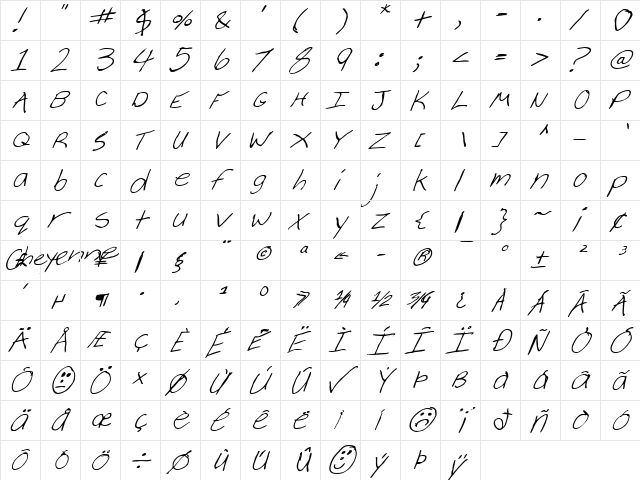
Cheyenne Hand Italic Italic
Design Context for Cheyenne Hand Italic Typeface
Cheyenne Hand Italic flows with the natural rhythm of handwritten lettering, making it ideal for designs that call for warmth and personal expression.
Font Pairing: Combine Cheyenne Hand Italic with a simple geometric sans for maximum contrast — the tension between flowing curves and clean structure is a classic typographic pairing.
Pro Tip: Pair Cheyenne Hand Italic with a clean sans-serif for supporting text. The contrast between fluid script and geometric structure creates an elegant typographic hierarchy.